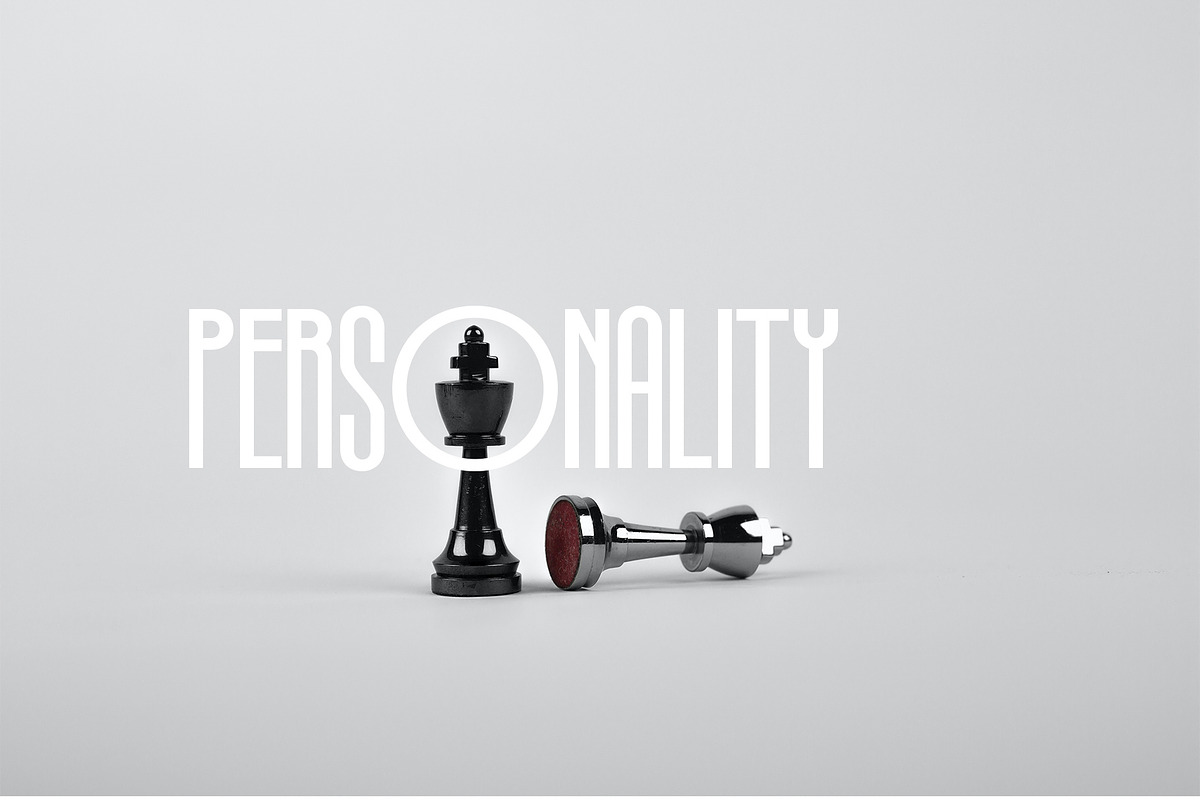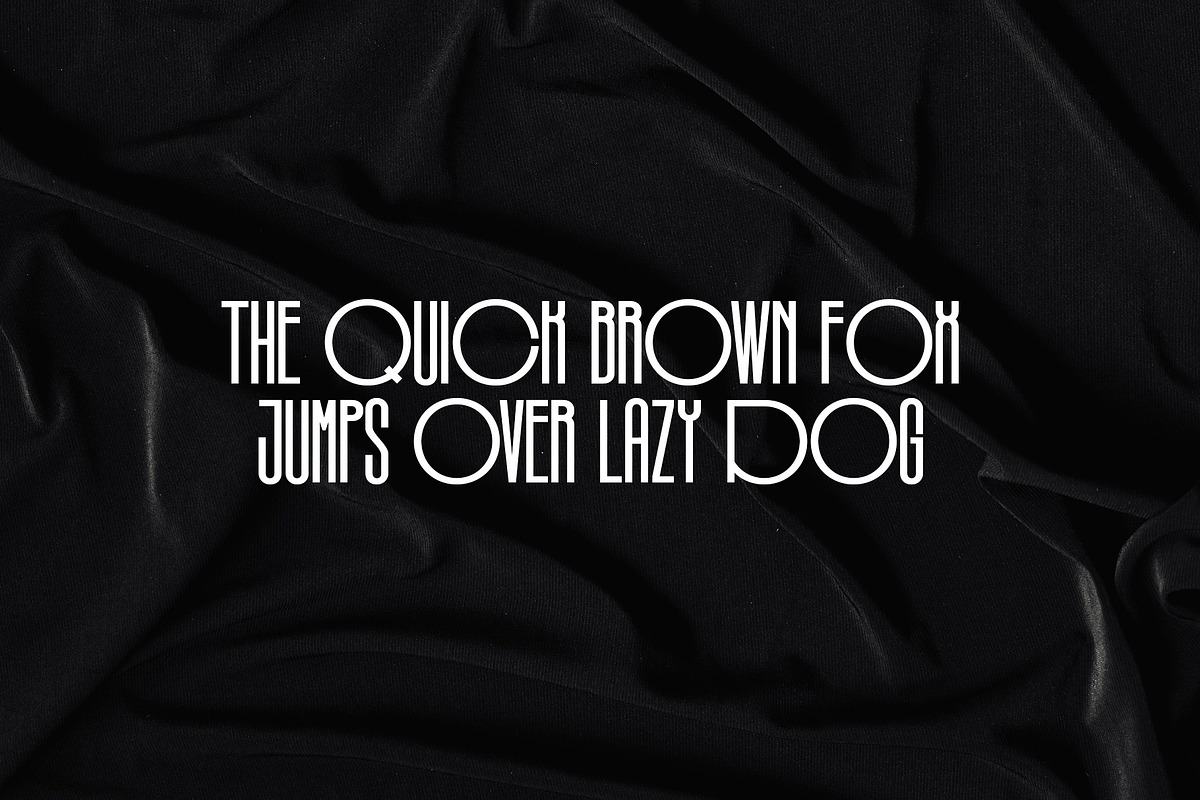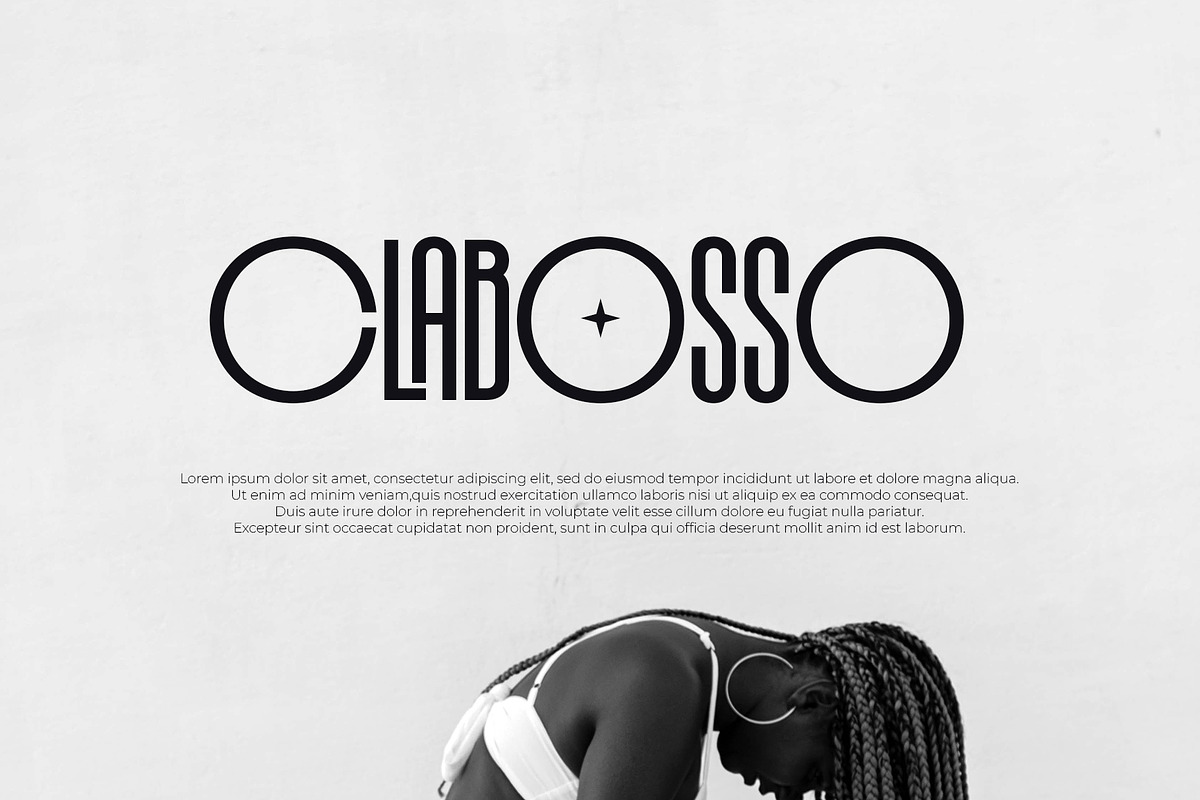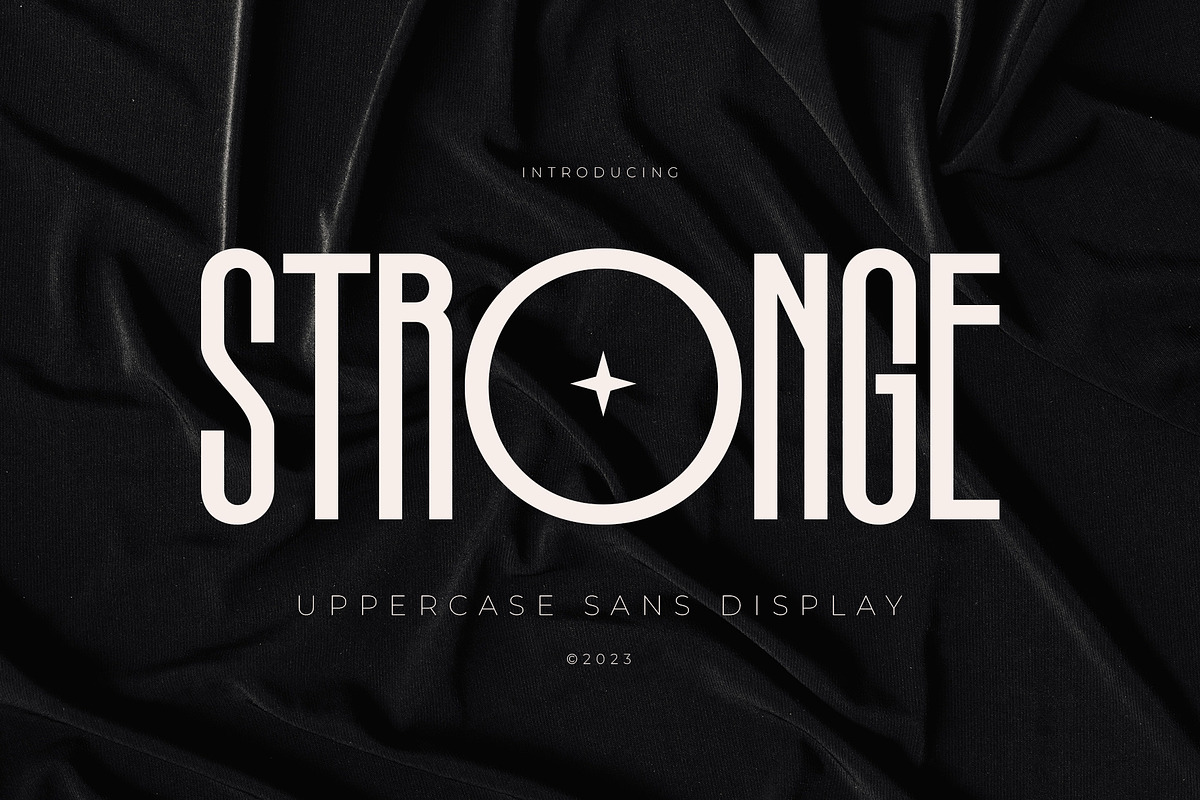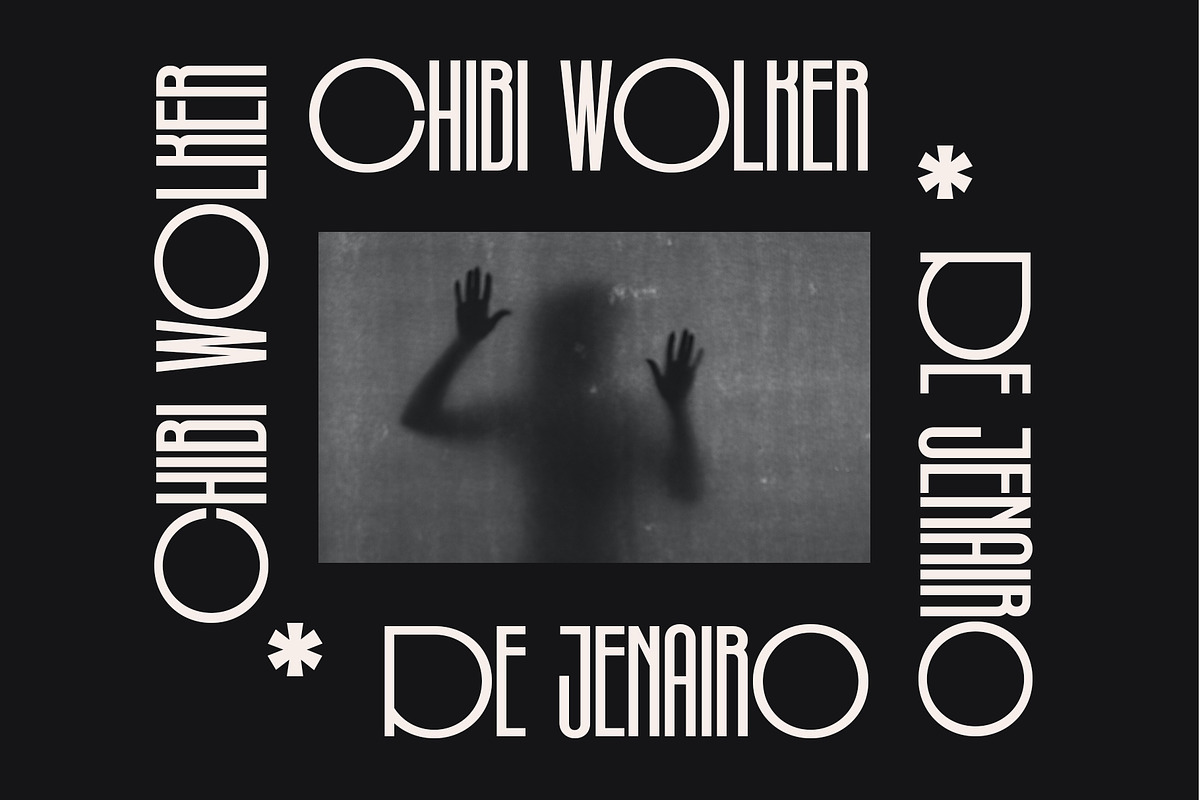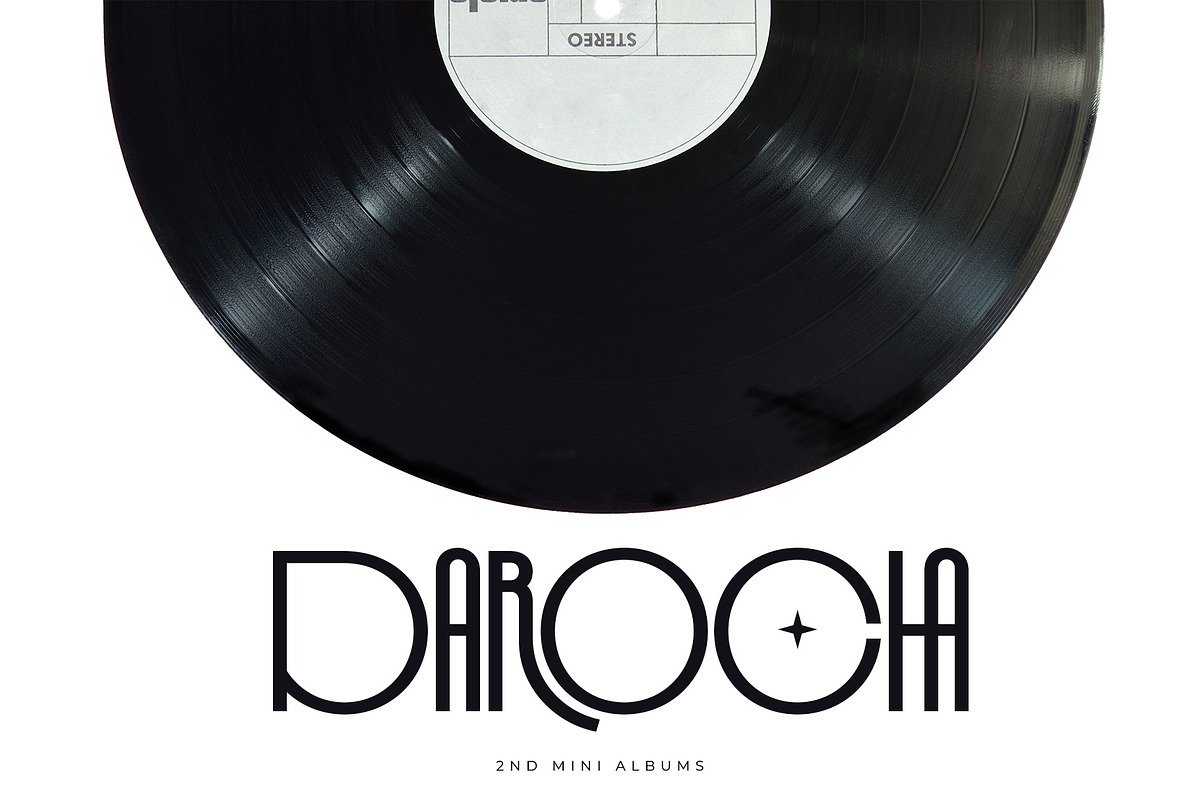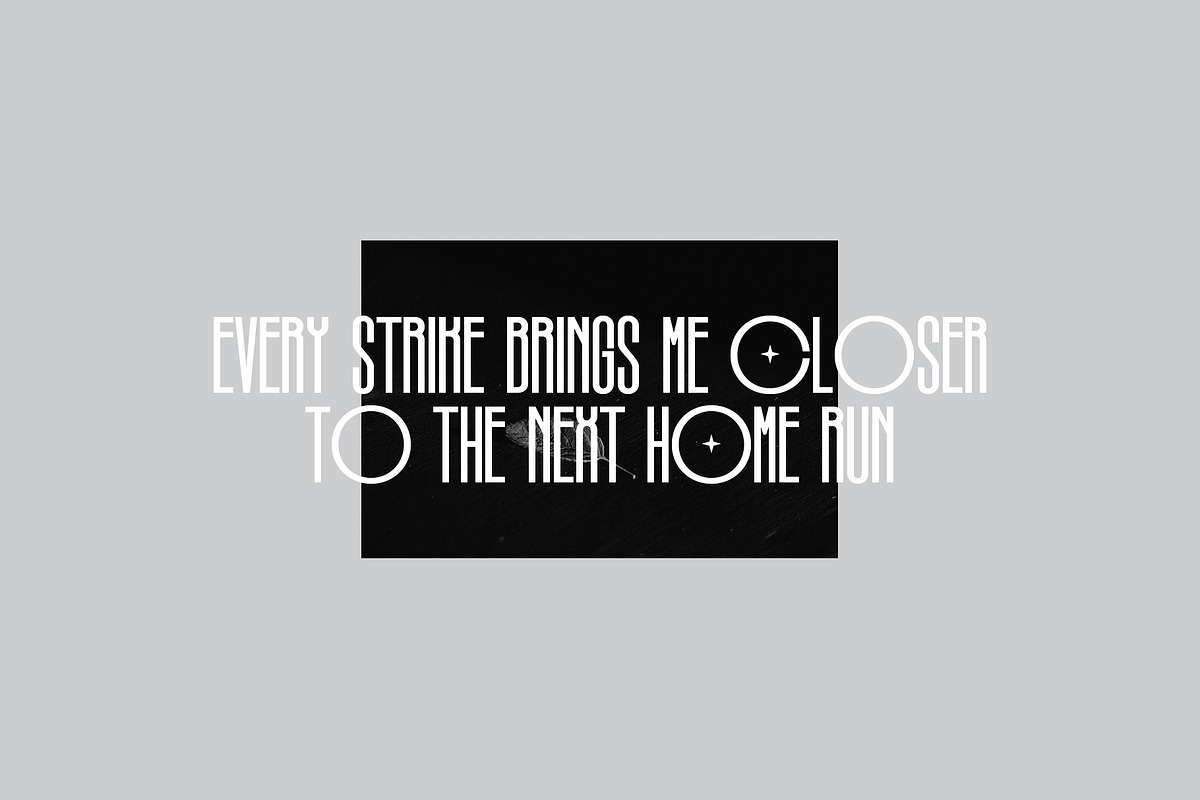
Stronge Display Condensed Sans
hello..this is my newest font with the name STRONGE. This font is modern and unique in style, perfect for adding a unique color to your projects. This font is also very suitable for making posters and your music albums to get a more attractive visual impression. You will get otf, ttf, woff and woff2 files